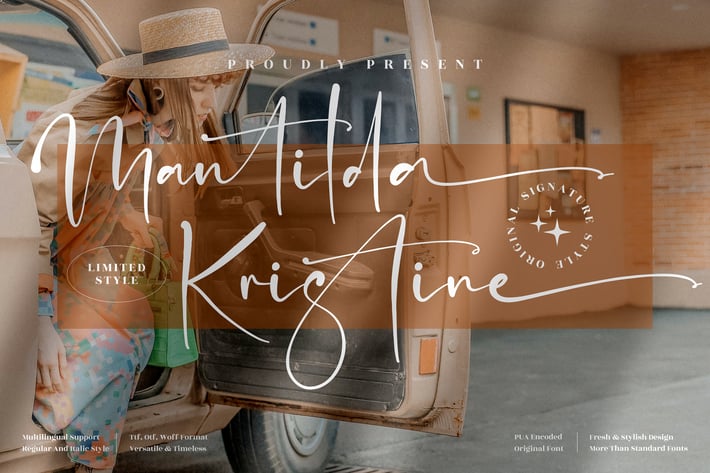
Mantilda Kristine Signature Font
Mantilda Kristine is a sophisticated signature font that combines elegance and fluidity for timeless appeal. Designed with delicate curves and smooth strokes, this typeface captures the essence of modern calligraphy while maintaining a natural handwritten feel. Perfect for projects that need a personal yet luxurious touch.
Stylish handwritten signature design
Includes Regular and Italic styles
Smooth ligatures for a natural writing flow
Write with grace — Mantilda Kristine adds effortless sophistication to every word.